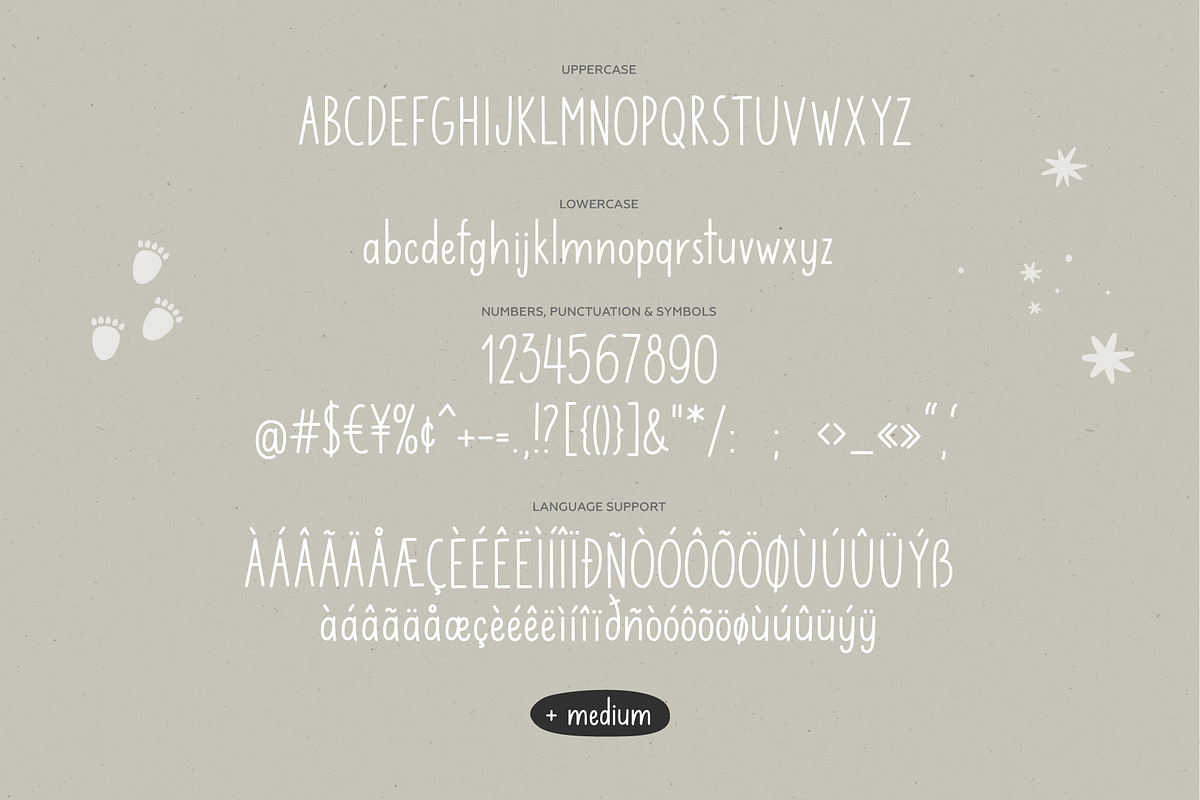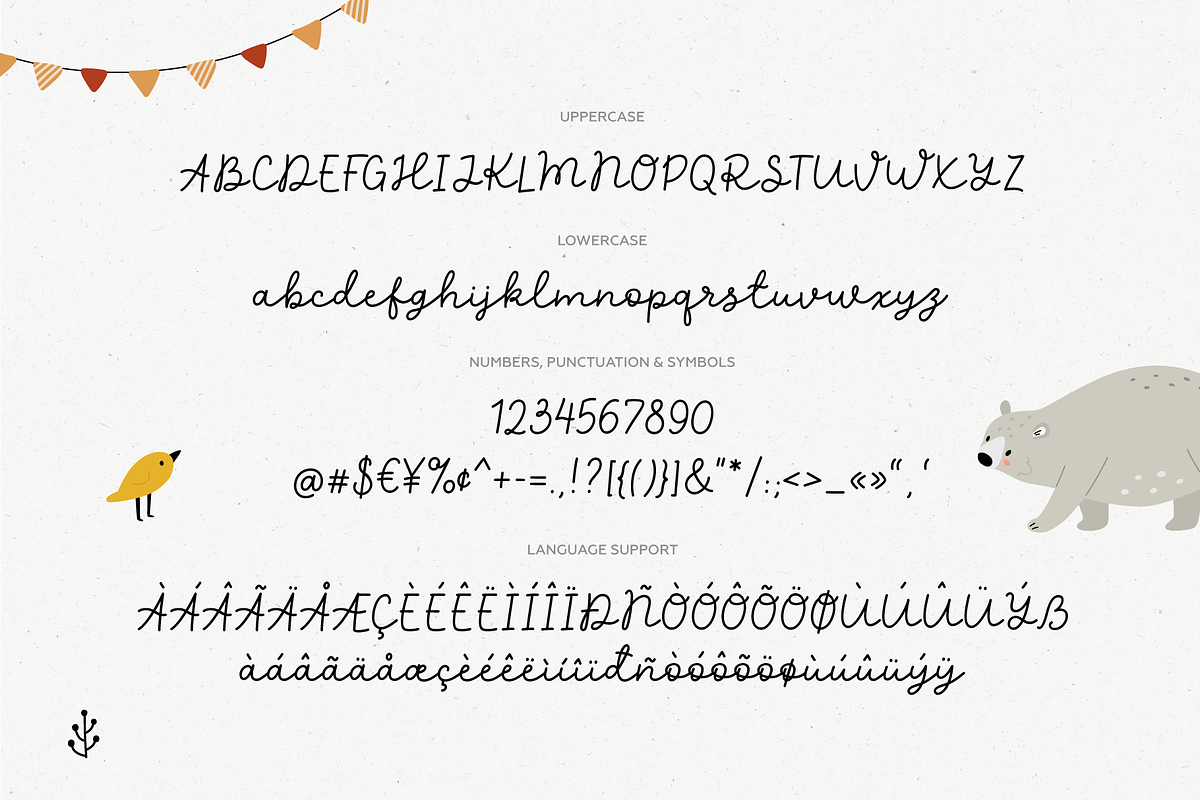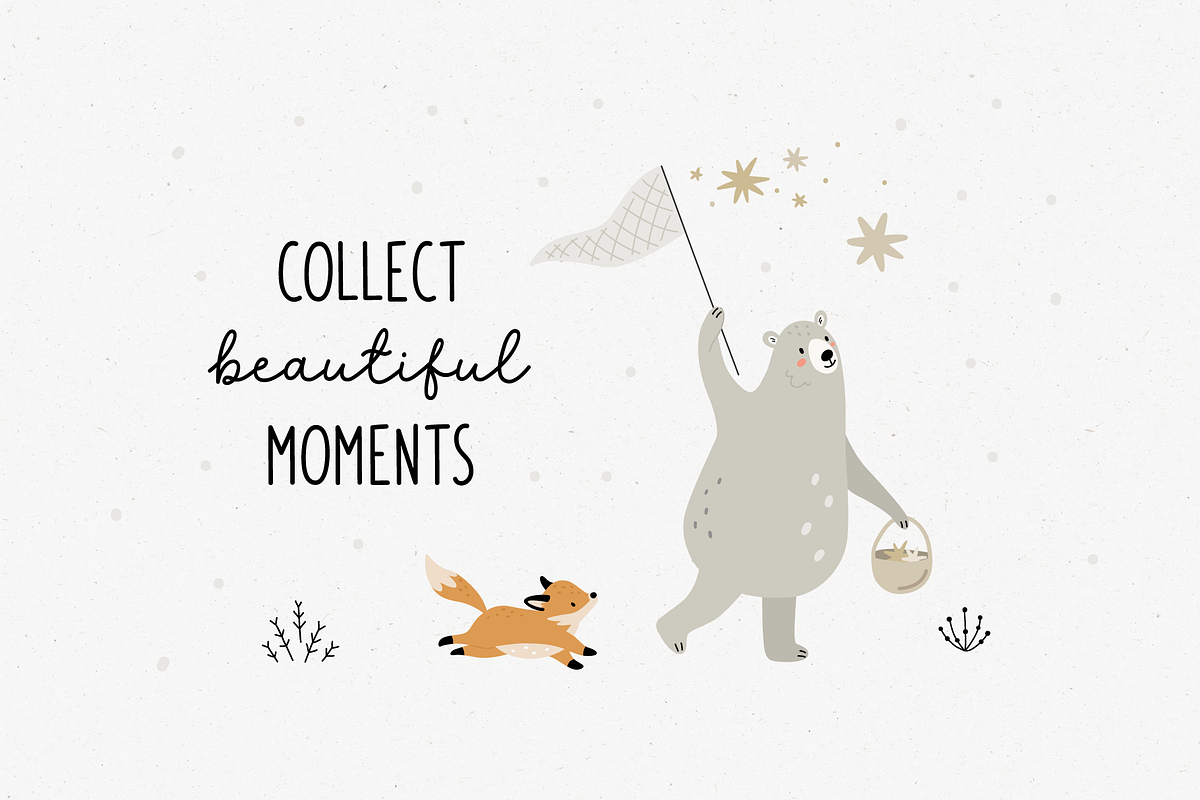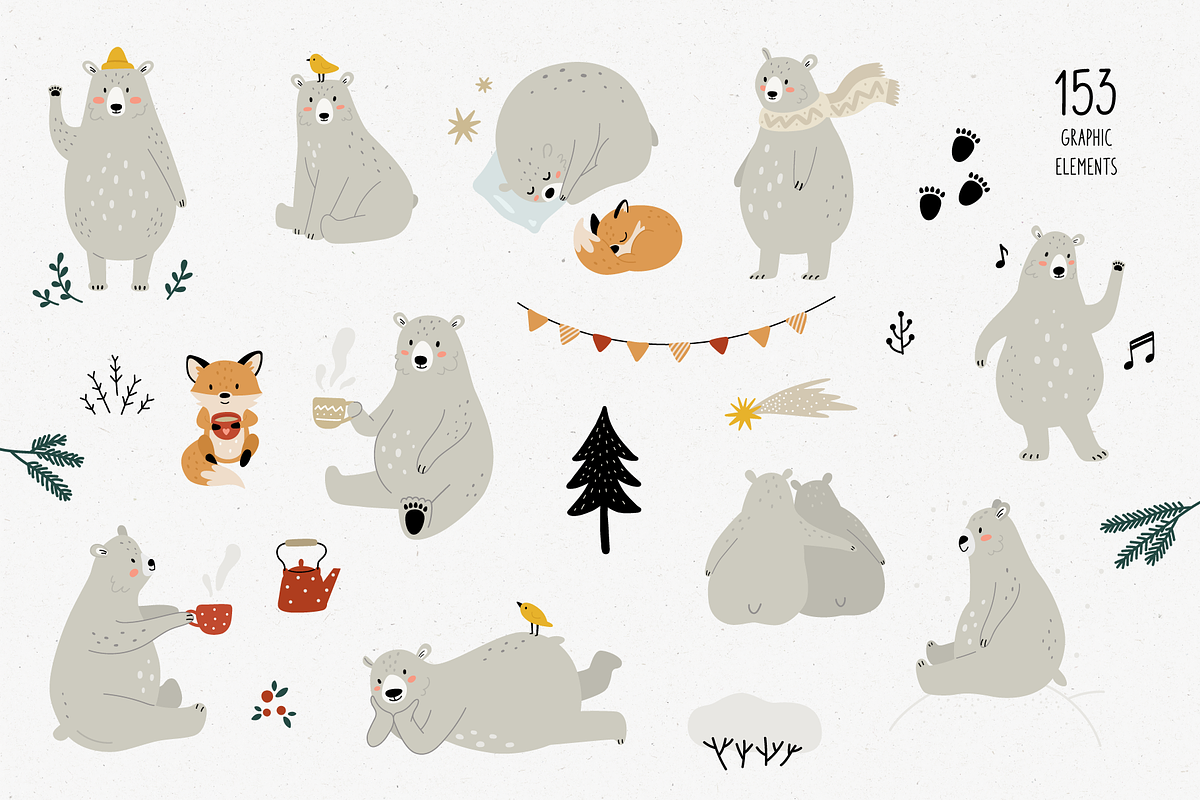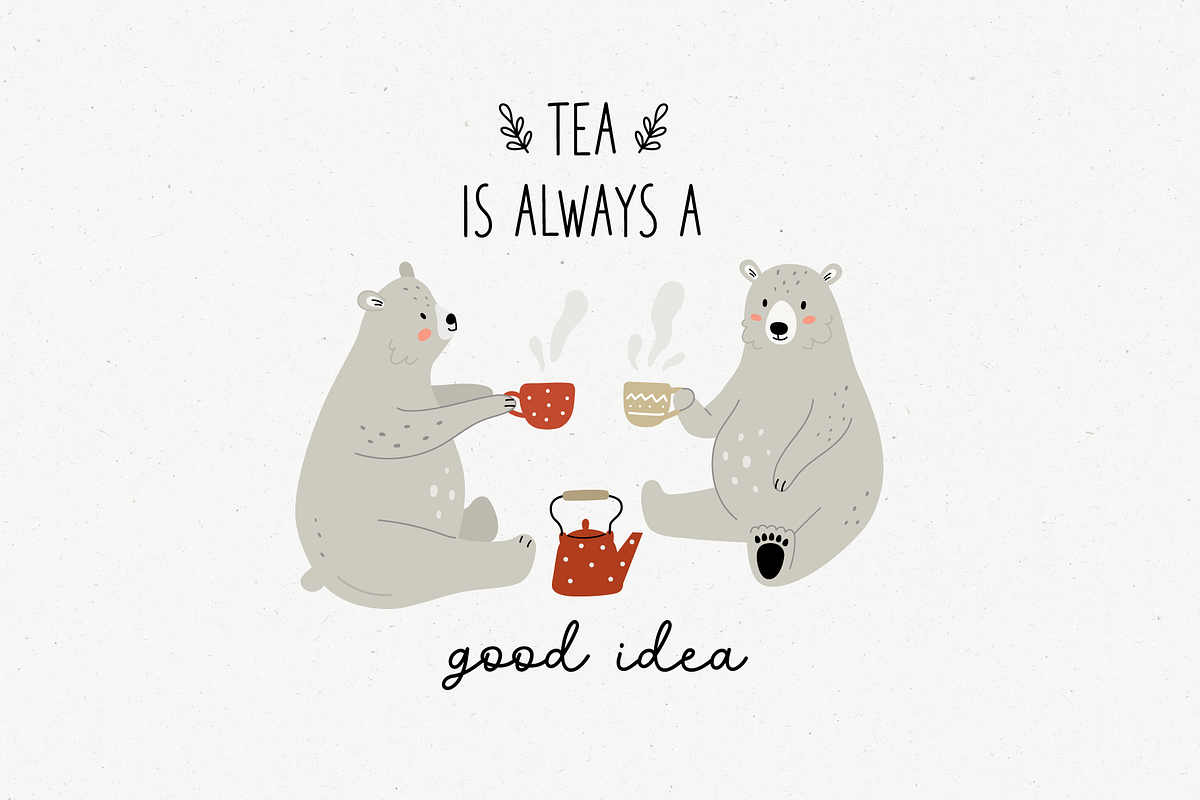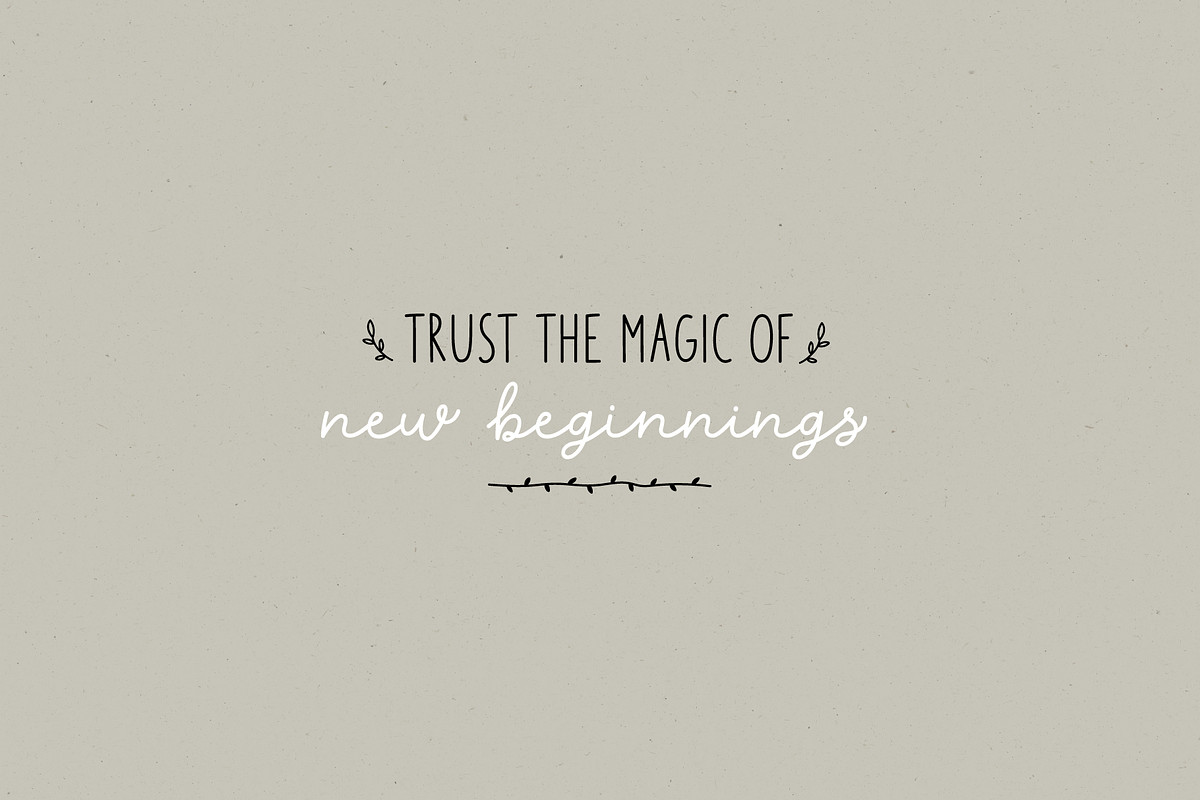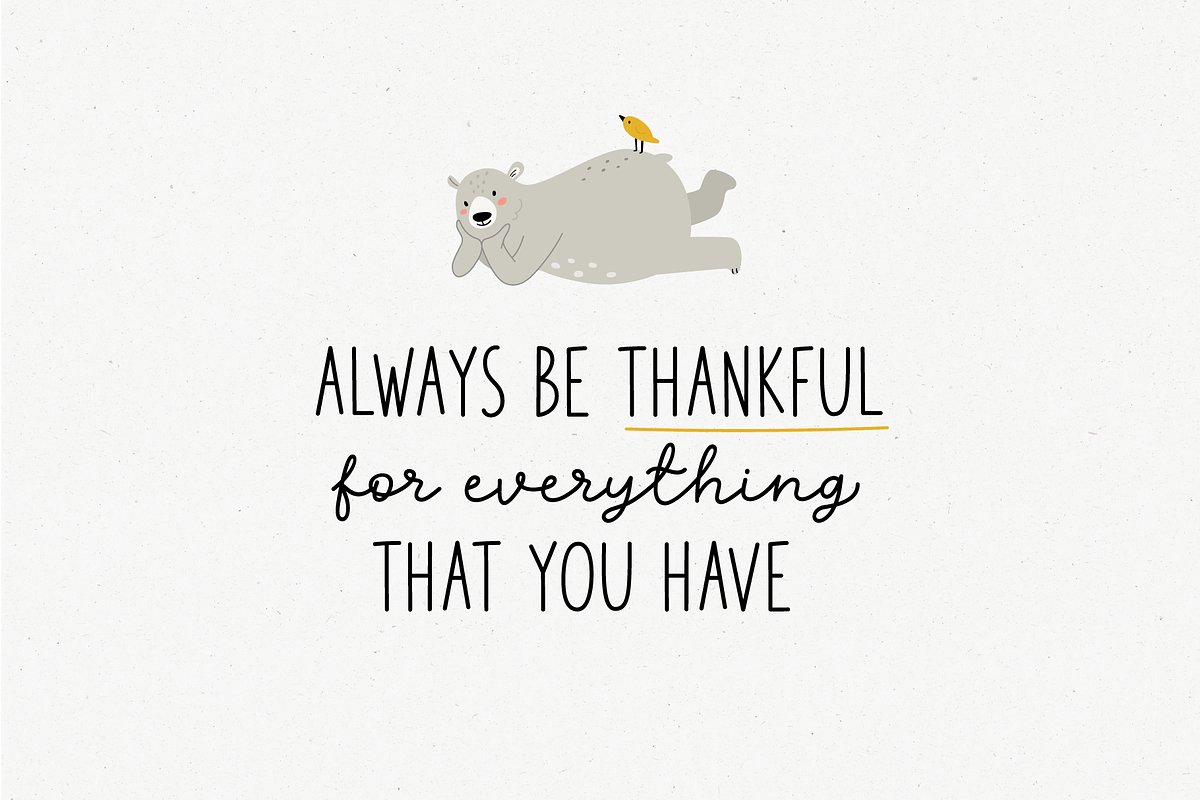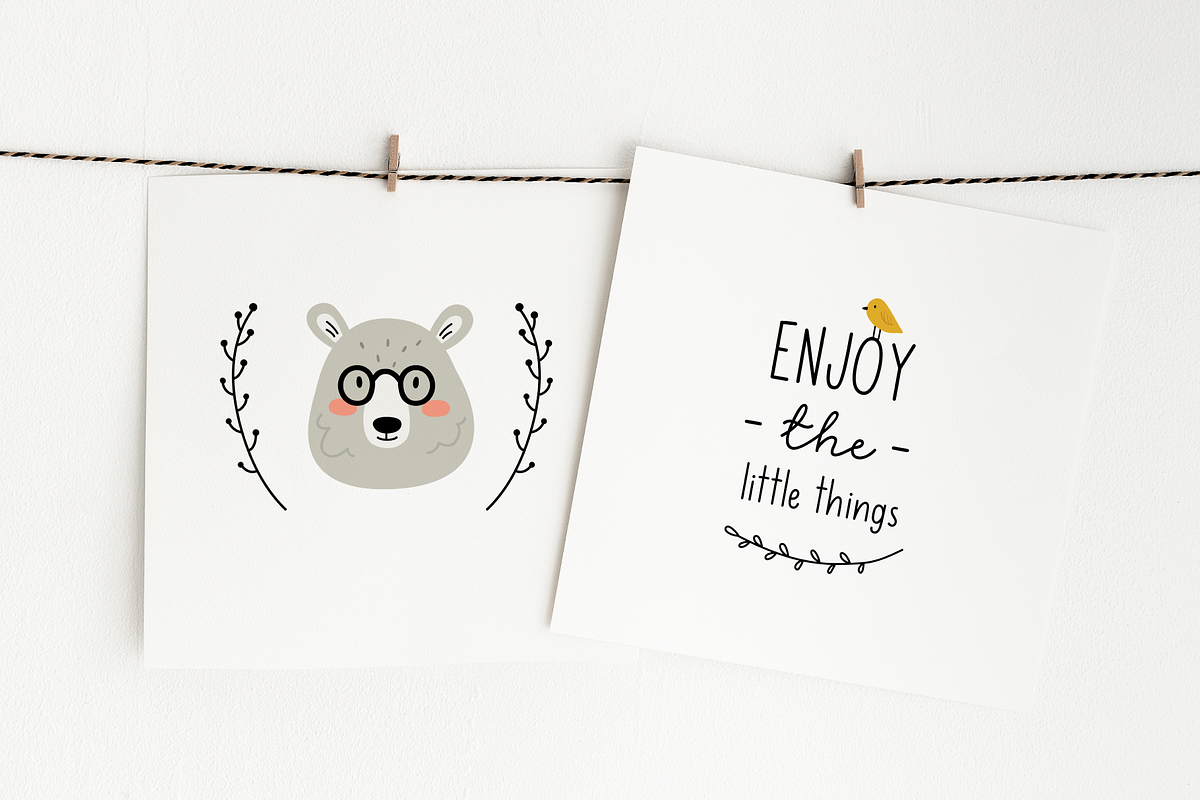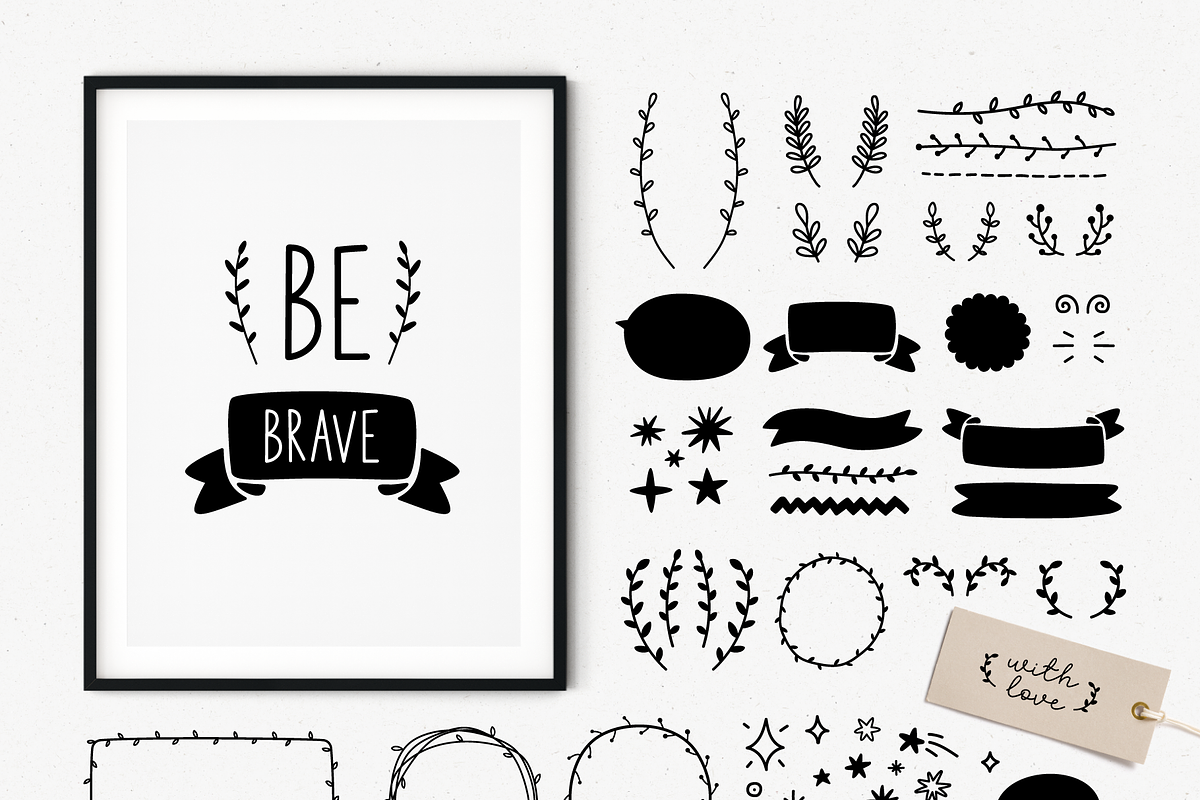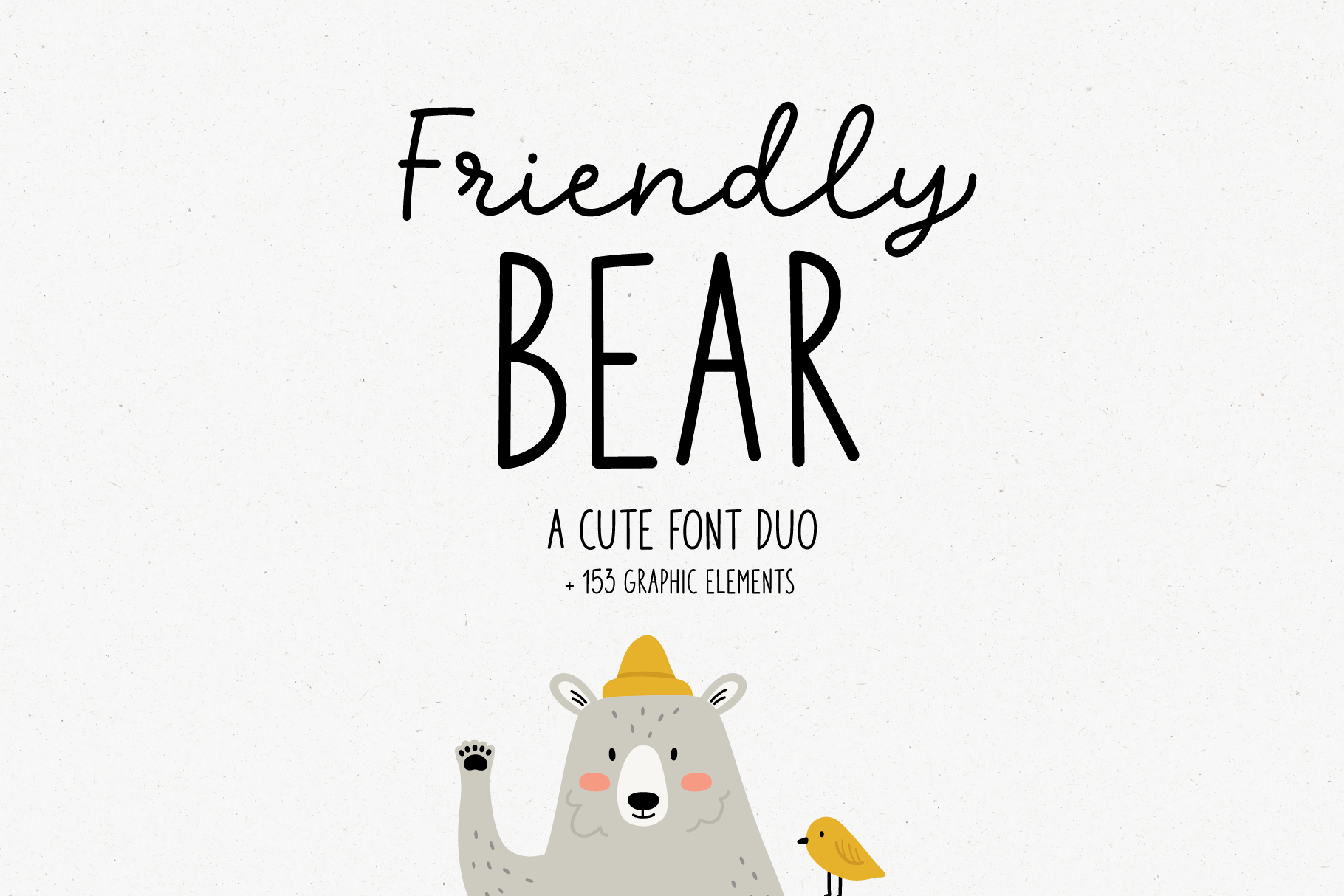
Friendly bear | Font duo
Friendly bear will be perfect for books, greeting cards, toys, posters, baby clothing, picture books or anything that requires a fun and happiness look!